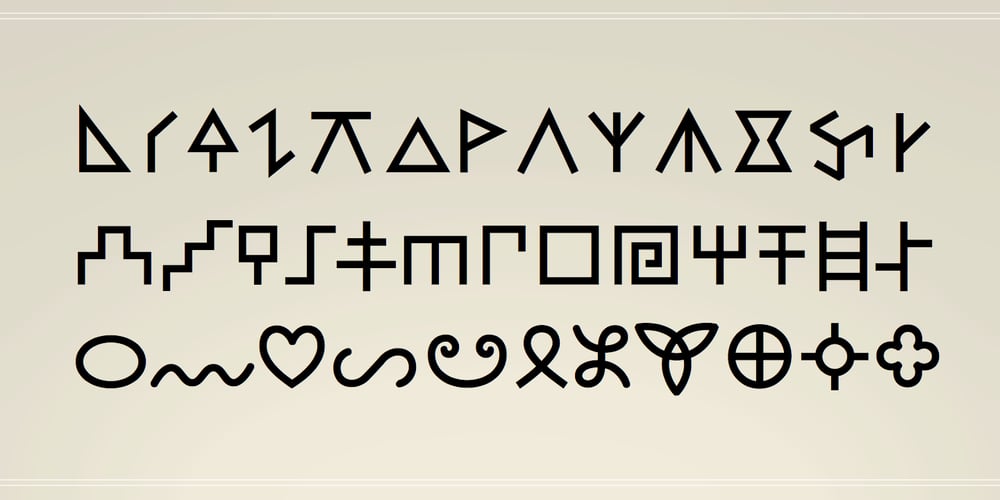
SIAS Gramma Font Family was designed by Andreas Stötzner and published by SIAS. SIAS Gramma contains 3 styles and family package options. The Gramma font family provides about 240 very basic graphic structures. Compilation of of this set has been inspired not by symblic but by graphical-morphological concerns. Therefore the three fonts (A, B, C) represent the entirety of all possible and simple graphic forms. Glyphs of this kind are likely to be found anywhere: in scripts, in signage, in branding marks – and so on. So, the Gramma font package is applicable to a great variety of usage. Whenever a free choice of elemental graphic motifs is desired – be it ideographical, pictographical or for brand design, this package provides you with nearly any graphic shape imaginable.